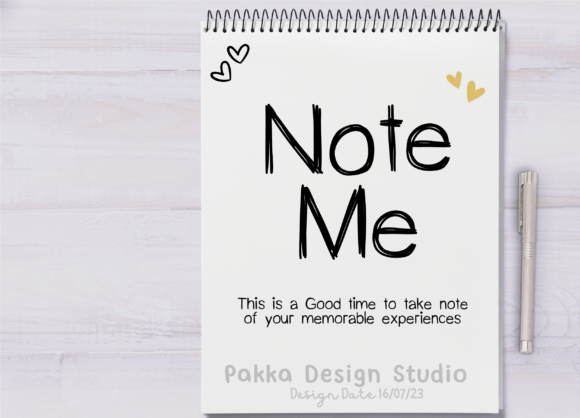
Let your ideas dance on the page with the Note Me Font, a whimsical and energetic script typeface that embodies the spirit of spontaneous note-taking. Inspired by the joy of jotting down thoughts and inspirations, this font captivates with its quick, scribbled strokes, resembling the playful essence of doodling. Each letter is a testament to the uninhibited flow of creativity, adding a dash of whimsy and informality to your designs.
Immerse yourself in a world of endless possibilities as Note Me Font elevates your note-taking experience. Its energetic scribbles mirror the excitement of capturing fleeting ideas, transforming your digital notes into a visual playground of thoughts and inspirations. Unleash your inner artist and let your imagination soar with this font that celebrates the beauty of spontaneous expression.
Whether you're crafting a heartfelt journal entry, adding a personal touch to your assignments, or creating captivating social media posts, Note Me Font will bring a touch of magic to your words. Its unique style adds a layer of charm and playfulness, making your content stand out from the crowd. Let your words dance on the screen, captivating your audience with the vibrant energy of this scribble-inspired typeface.
With Note Me Font, you'll discover a font that's not just visually appealing but also highly versatile. Its ability to blend seamlessly with various design aesthetics makes it a true all-rounder. From whimsical illustrations and playful branding to captivating social media graphics and eye-catching headlines, Note Me Font adapts effortlessly to your creative vision.
Step into a world where creativity knows no bounds, where your ideas flow freely, and your designs come alive with the Note Me Font. Embrace the spontaneity of note-taking, capture the essence of creative expression, and let your words ignite imaginations. Download Note Me Font today and embark on a journey of artistic exploration, where every stroke of the pen is a testament to your unique style and boundless creativity.